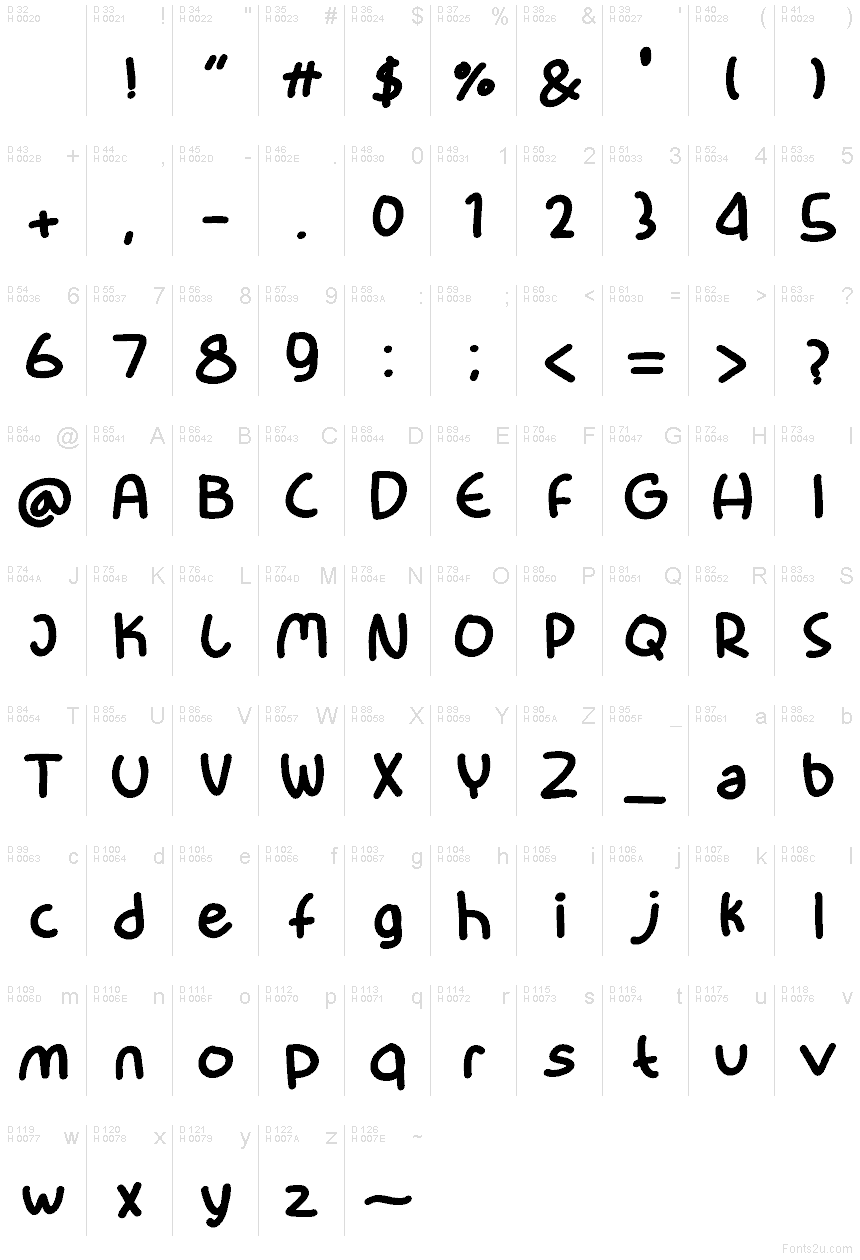
Zodicat
Zodicat font is a handwritten creation by Origin Type with a casual, hand-drawn style. Its smooth flow and organic feel give it a friendly and approachable impression, making it perfect for designs that call for a personal touch. The font combines simplicity with elegance, ensuring both charm and legibility.